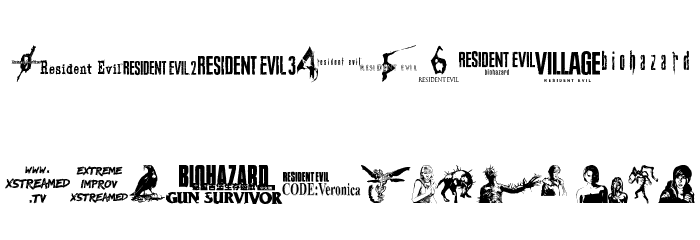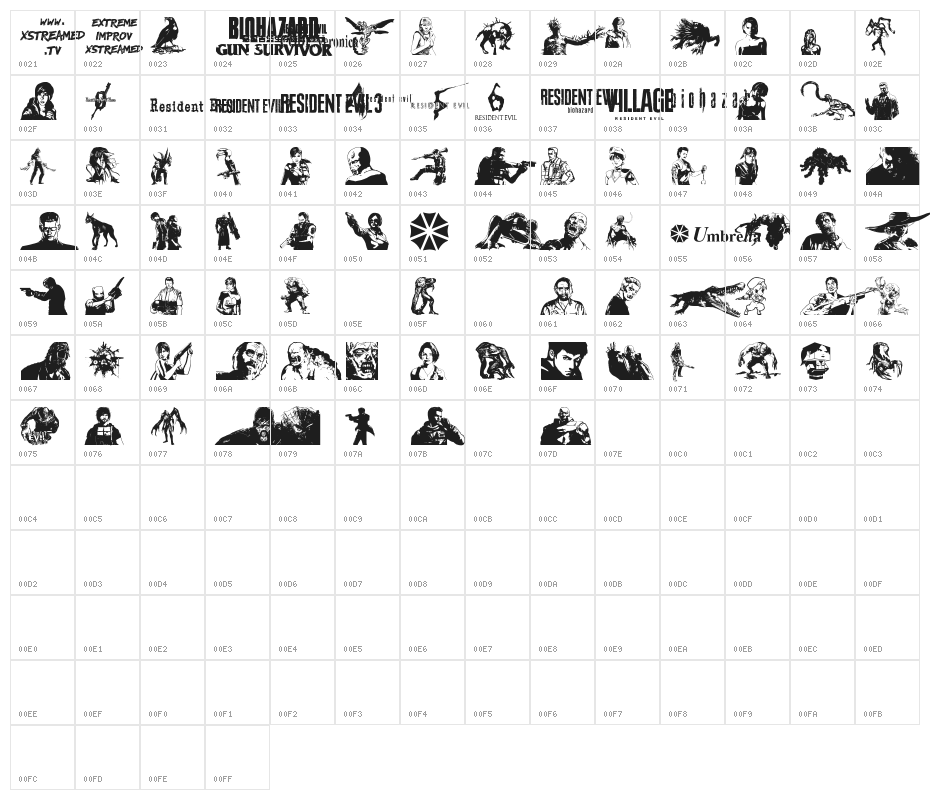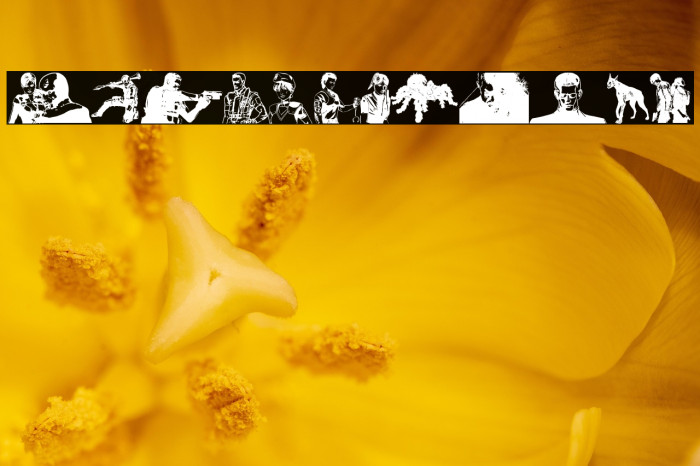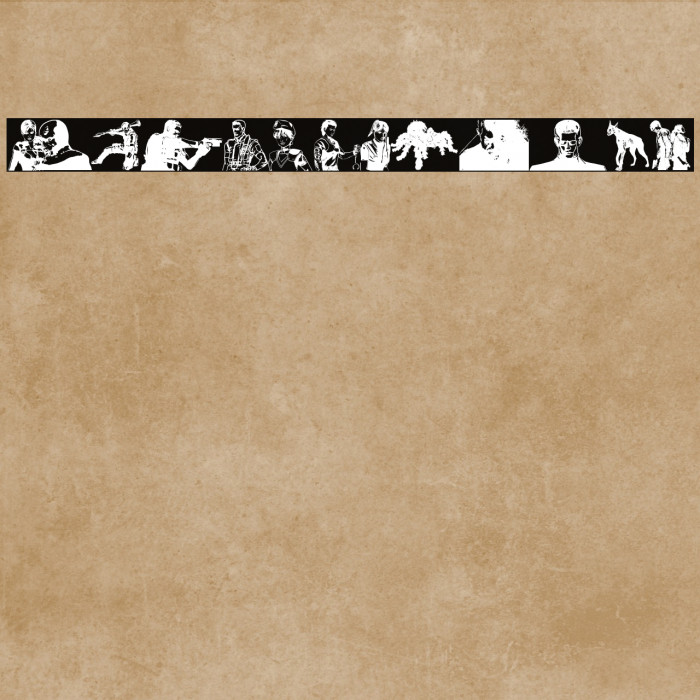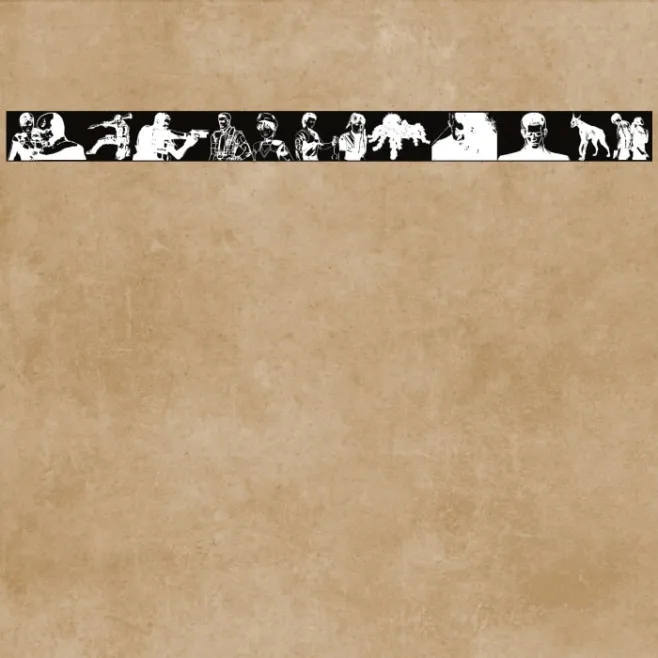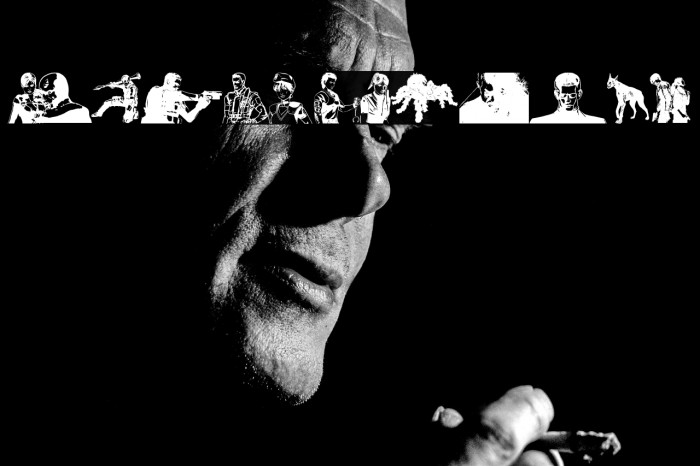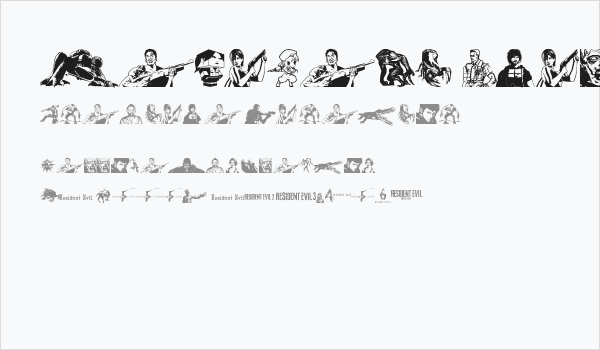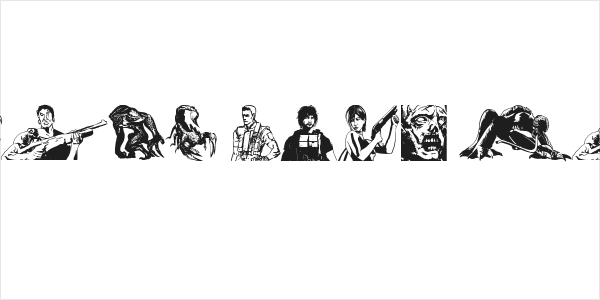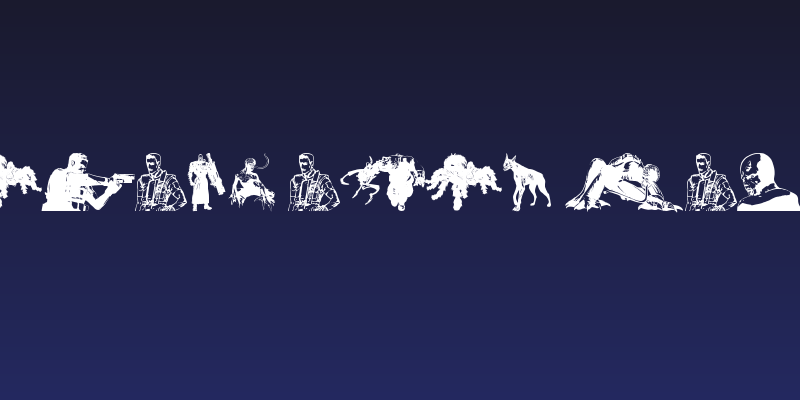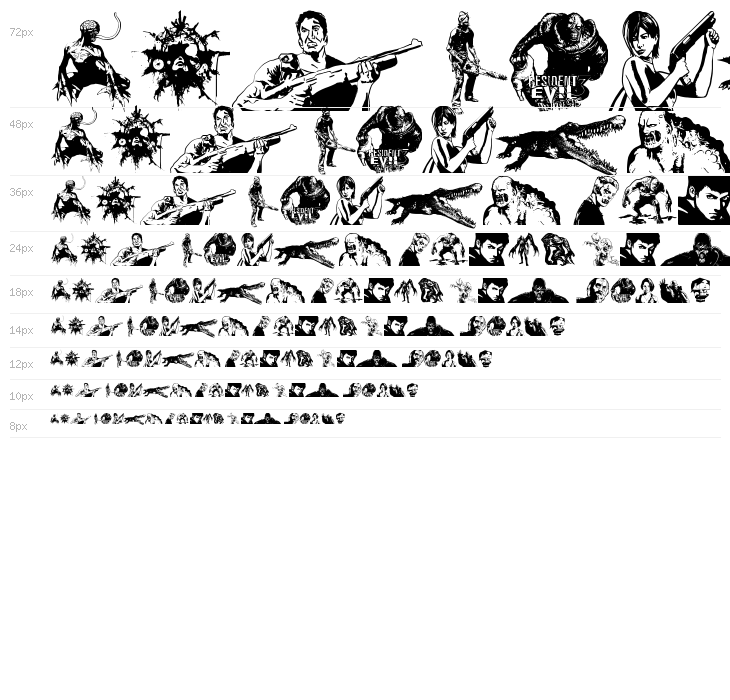
Resident Evil Rebirth Font
Resident Evil Rebirth Description
A highly decorative and thematic font composed of silhouettes and logos from the Resident Evil franchise, featuring characters, monsters, and iconic symbols. The glyphs are pictorial rather than traditional letterforms, making it a novelty or dingbat style font.
| Overall Style | Decorative, Thematic, Horror |
| Use Case | Logos, Posters, Themed Graphics, Decorative Titles |
| Proposed Projects | Fan art, game-themed posters, event flyers, horror-themed designs, collectible merchandise. |